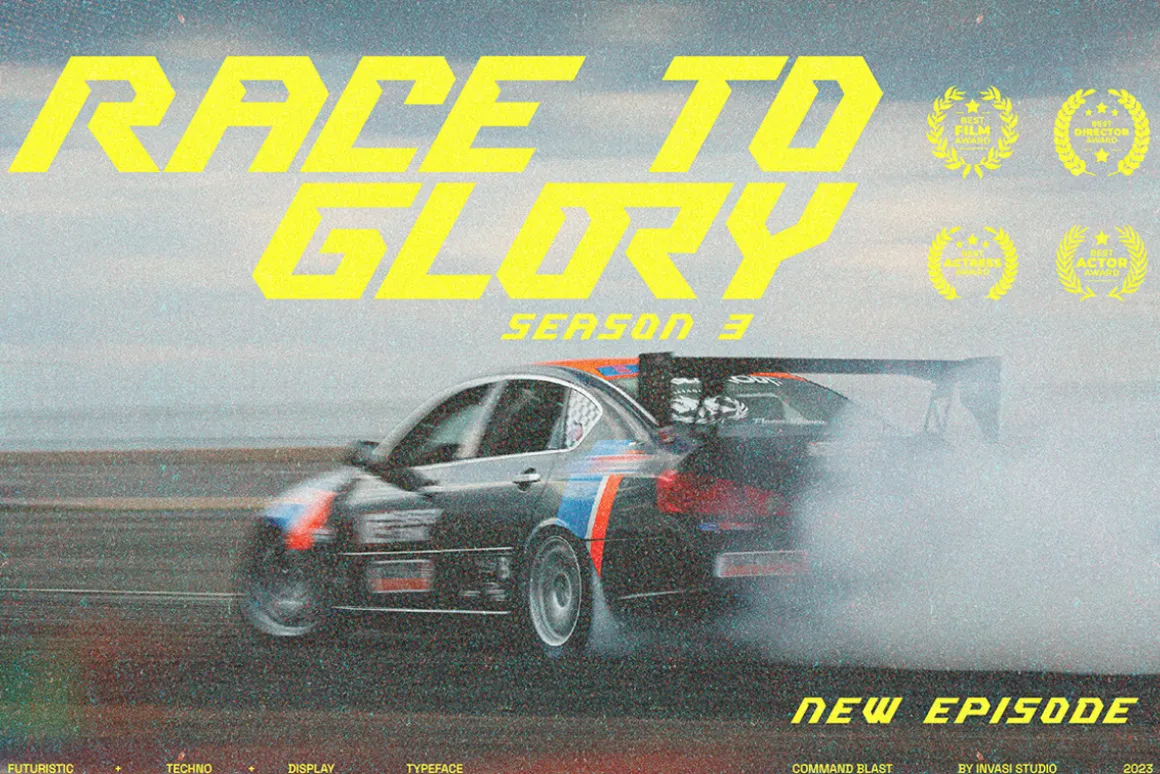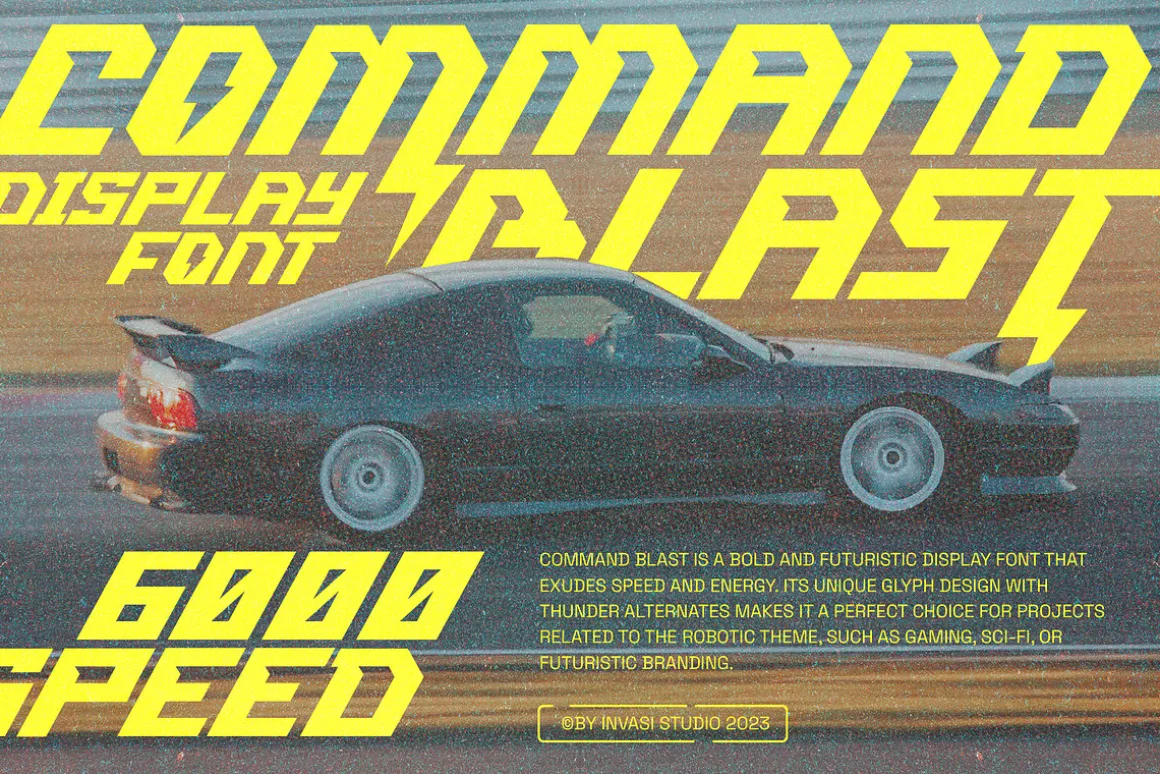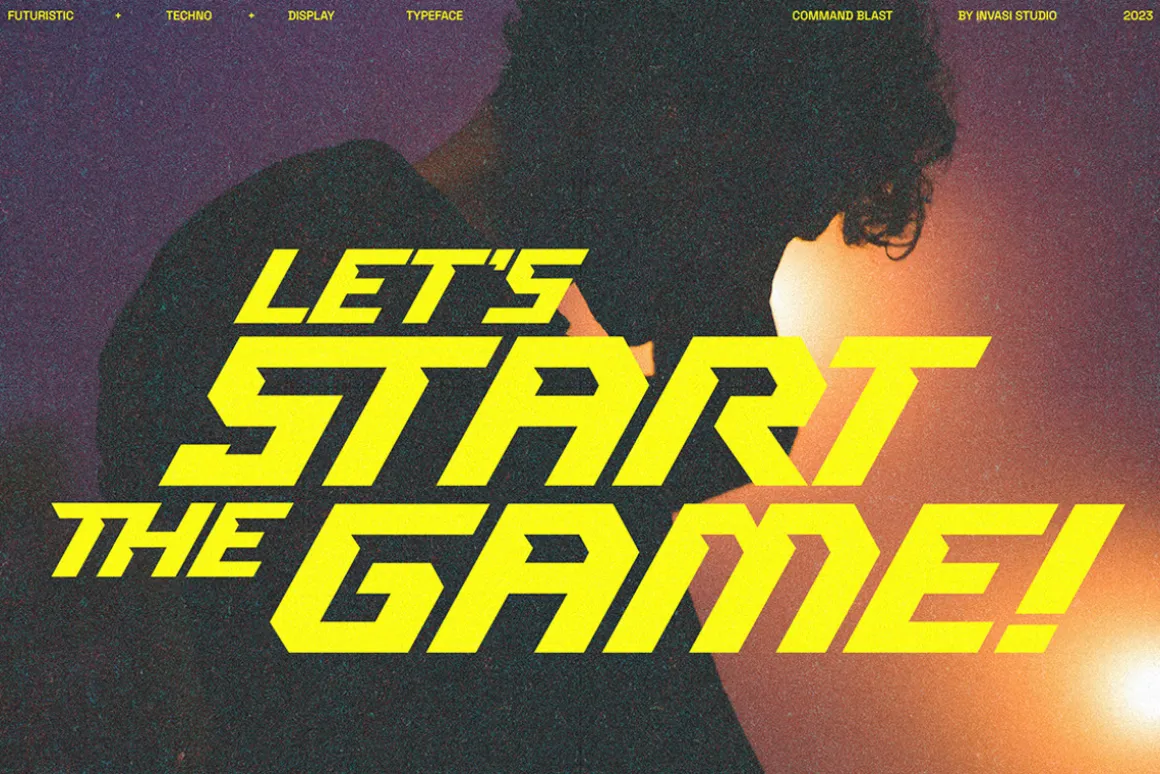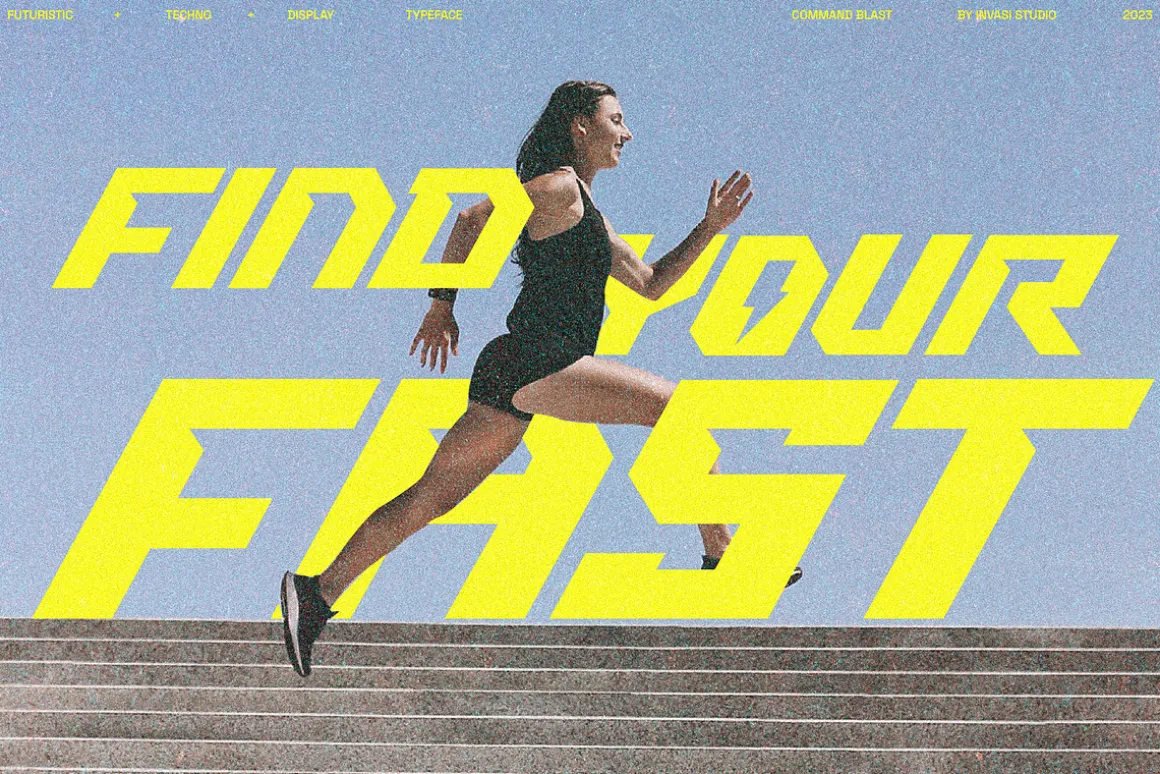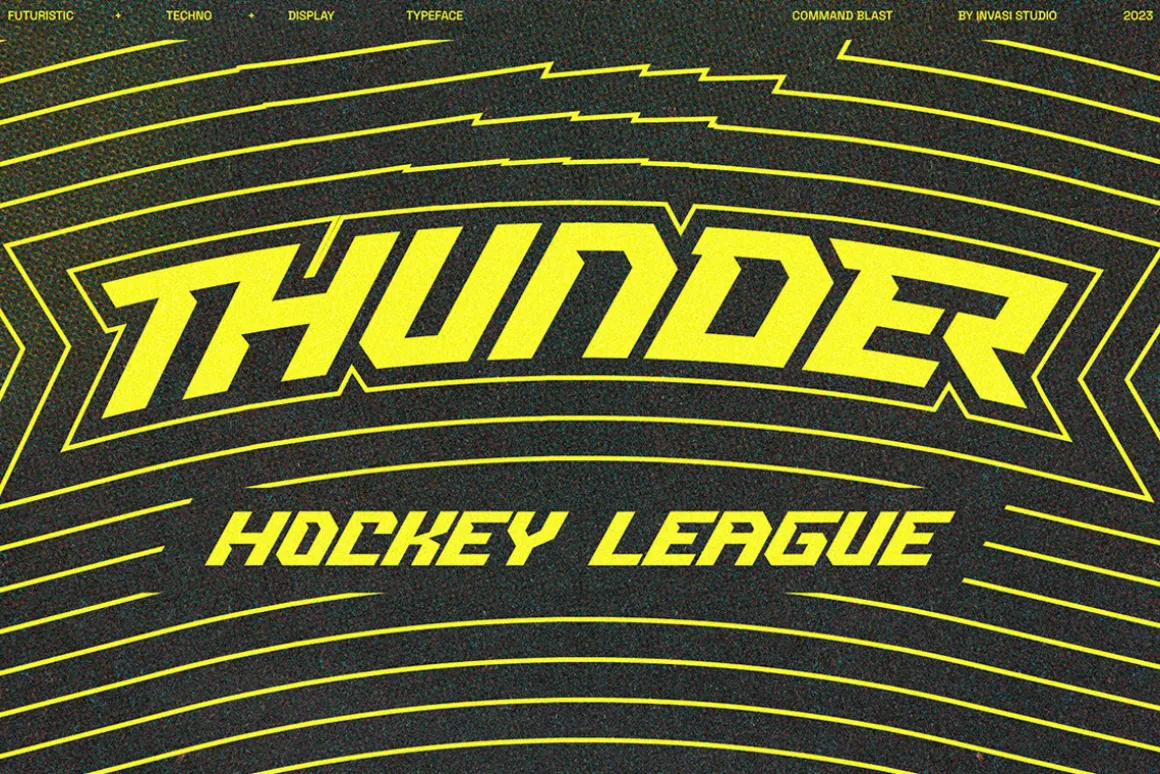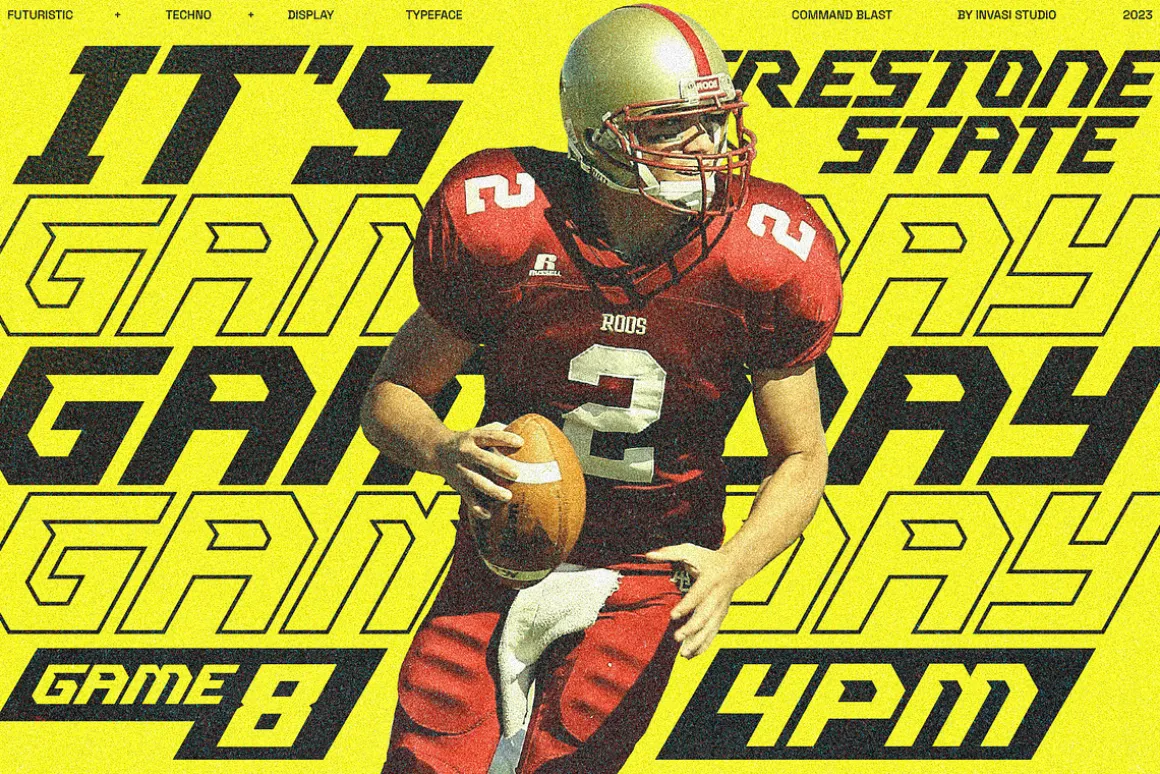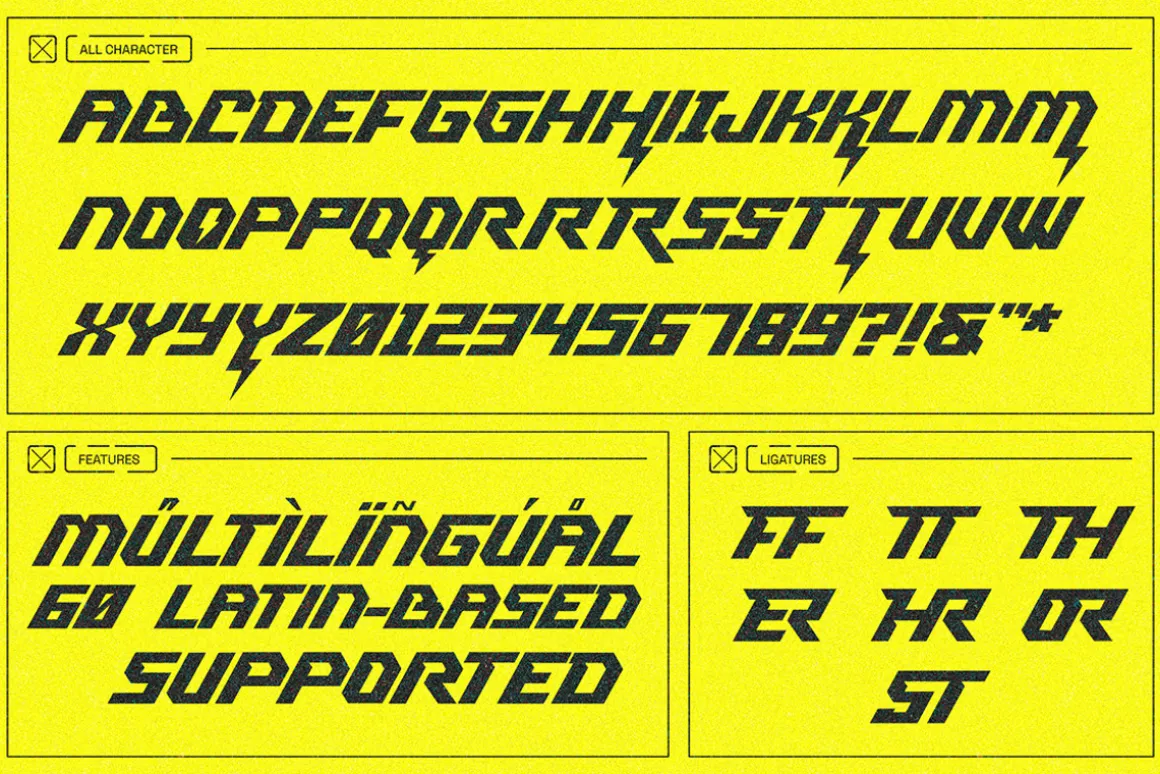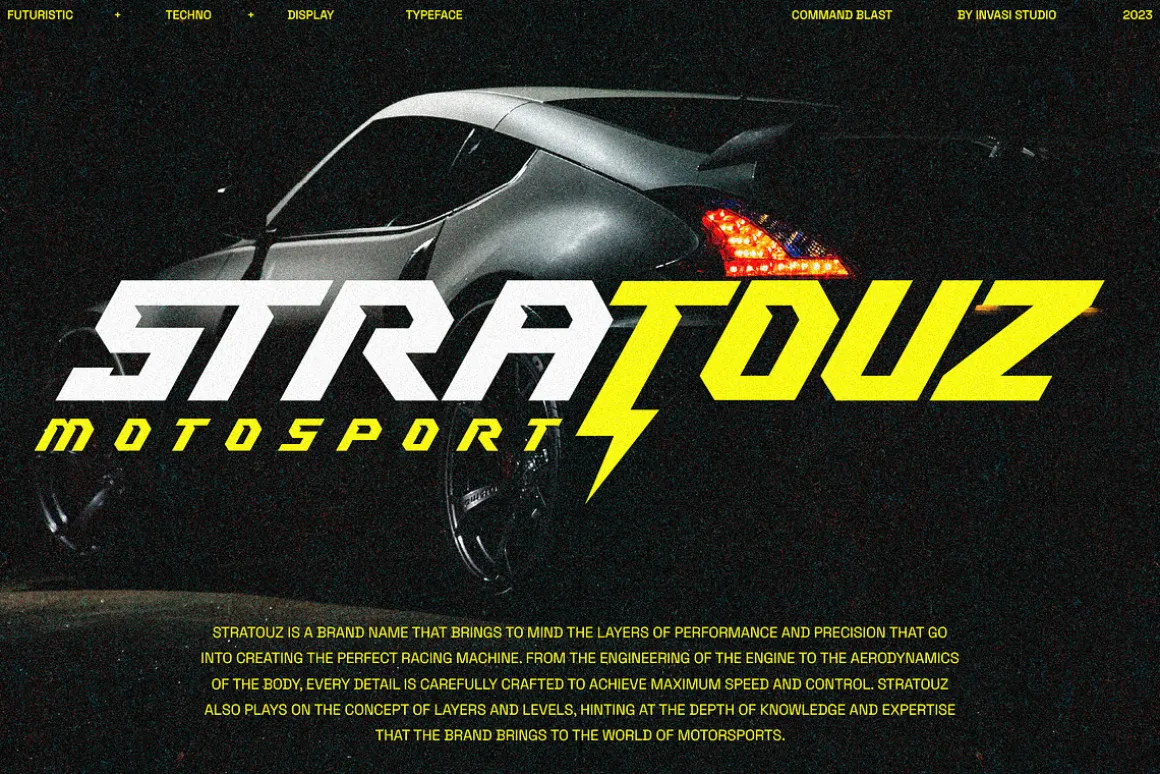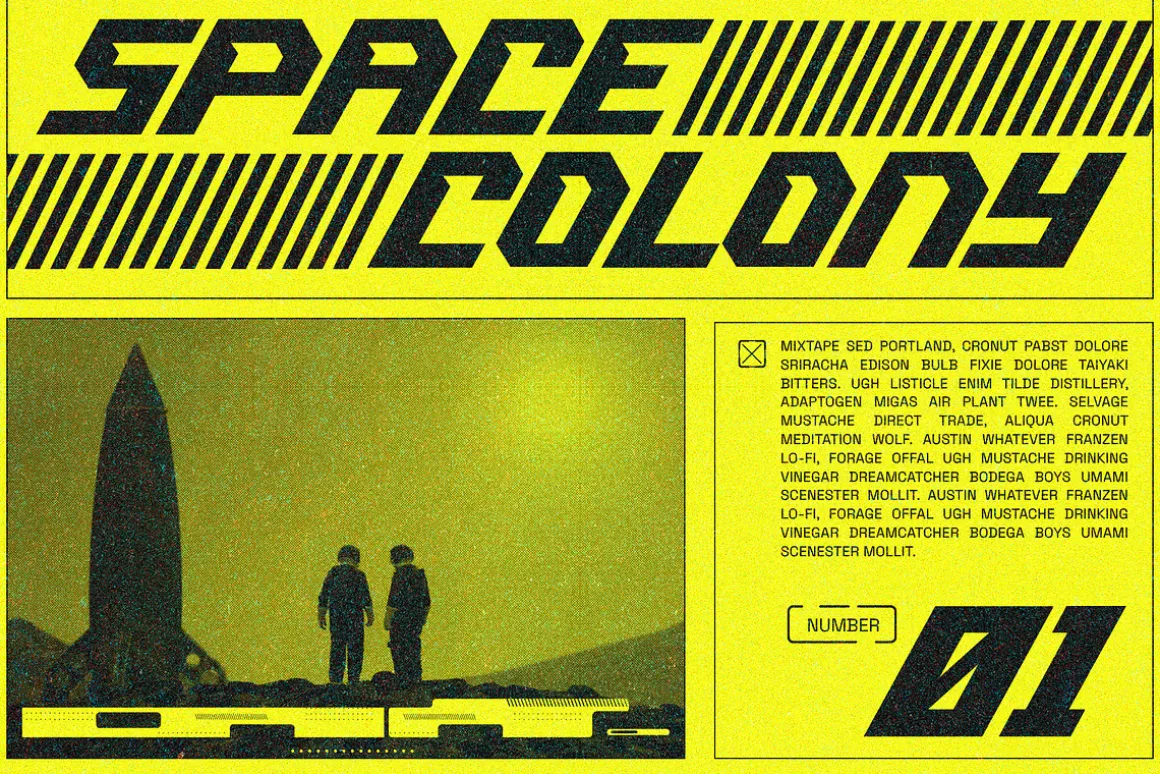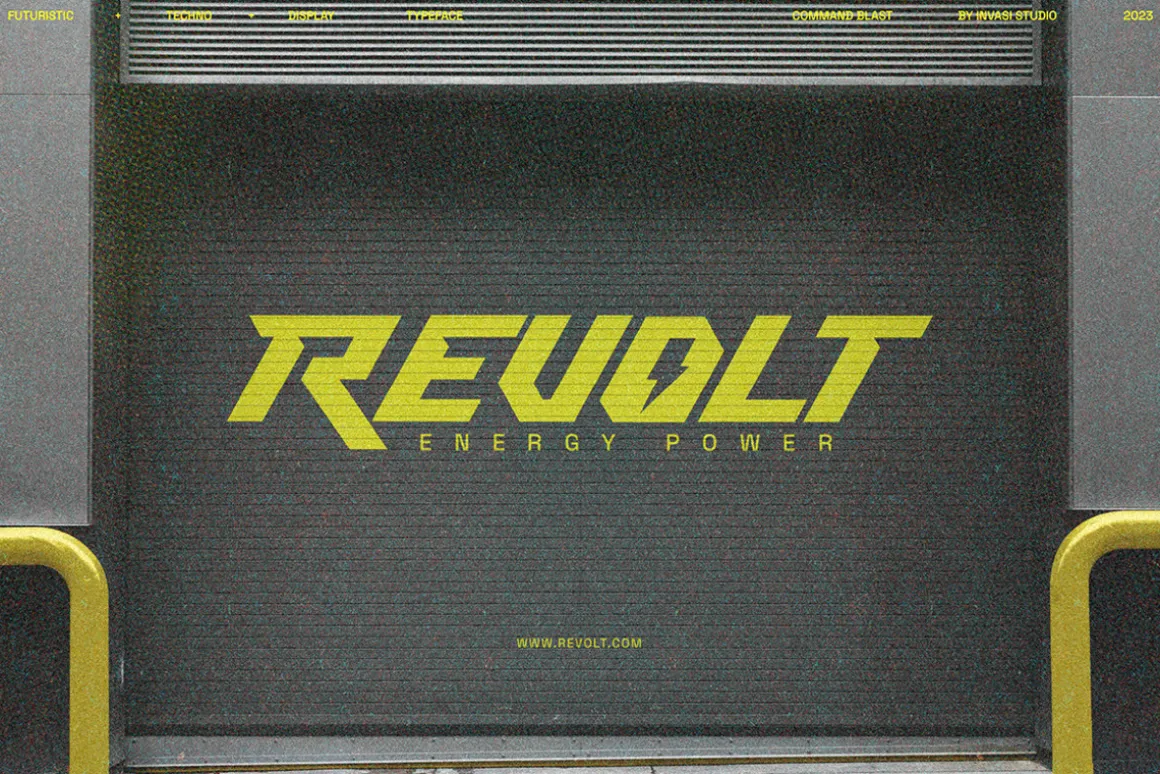
Command Blast is not your typical display font – it’s bold, it’s futuristic, and it packs a serious punch. What sets Command Blast apart is its unique glyph design with thunder alternates, which adds a level of dynamism and excitement to any design project. This font is perfect for anything related to robotics, such as gaming, sci-fi, or futuristic branding. Its edgy and high-tech vibe also makes it an excellent choice for sports cars, garages, and other speed-related themes. Command Blast is not just a font – it’s a statement, and with its alternate characters, ligatures, and Latin Multilingual Support, it offers endless creative possibilities for your designs.
- Uppercase
- Numerals & Punctuation
- Stylistic Alternates $ Ligatures
- Multilanguage Supports 60+ Latin-based languages